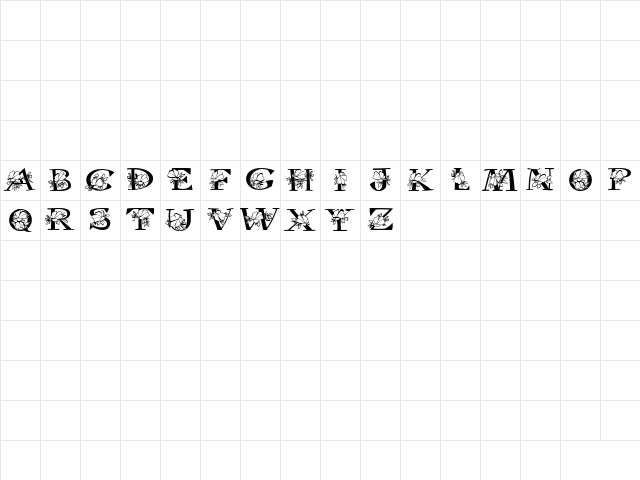
Hibiscus Regular Free Font
Hibiscus Regular
Hibiscus Family
Hibiscus Regular
Design Context for Hibiscus
Hibiscus is a composed and adaptable typeface that performs quietly and consistently across a wide range of design contexts.